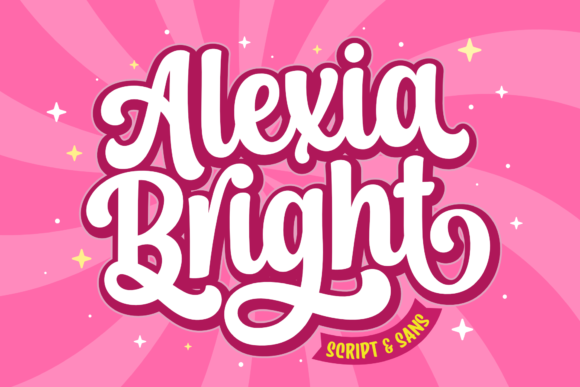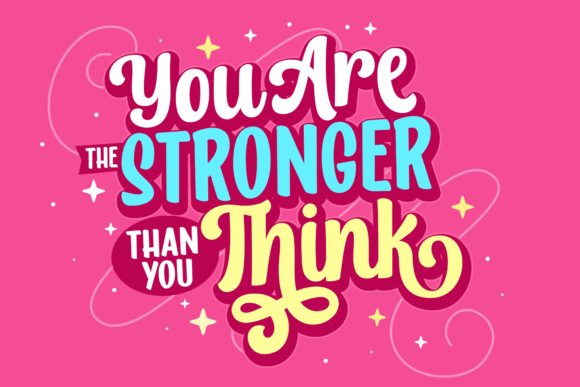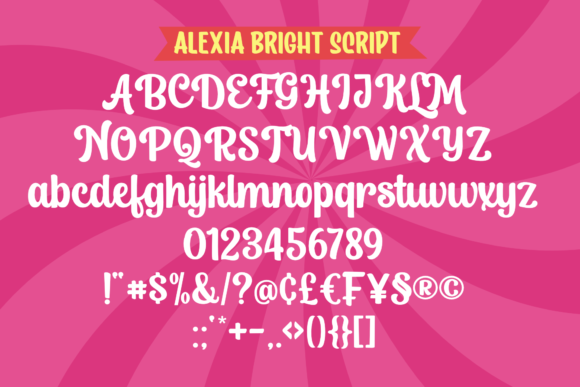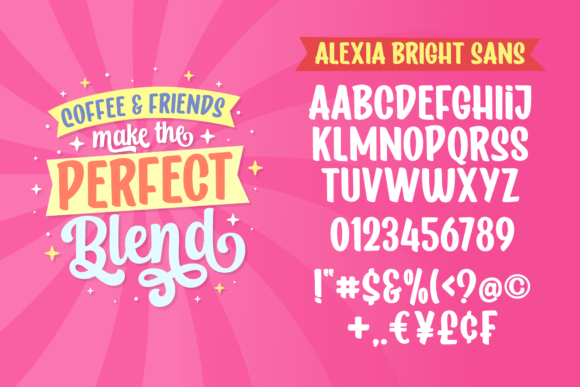
Alexia Font: A Cute Handwritten Display Font for Creative Projects!
About the Alexia Font
Add a touch of class to your work with the Alexia Font, a truly exceptional typeface. Alexia is a lovely and beautiful handwritten font.This font has the potential to take your creative ideas to the highest level.It is the best choice for creating eye catching logos, branding and quotes.
Alexia’s elegant, yet slightly informal, handwritten style makes it ideal for branding projects requiring a touch of personality, particularly logos, short headlines, and social media graphics. It also works well for packaging of artisanal products or boutique brands. However, its delicate nature makes it unsuitable for body text or UI elements; legibility suffers in smaller sizes or within large blocks of text.
Consider pairing Alexia with a clean sans-serif like Lato for a modern feel, or a classic serif such as Garamond for a more timeless and sophisticated aesthetic. For a playful contrast, a geometric sans-serif like Futura could be effective. These pairings provide structure and readability to balance Alexia’s flowing script.
Alexia’s overall personality is best described as sophisticated yet approachable; charming rather than overtly bold. It projects a sense of handcrafted quality and is perfect for brands that value authenticity and a personal touch.
Alexia Font Usage Examples